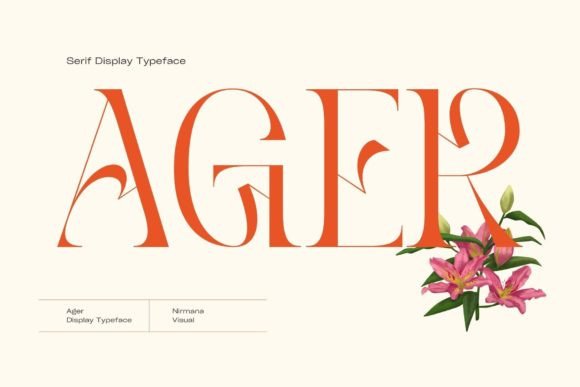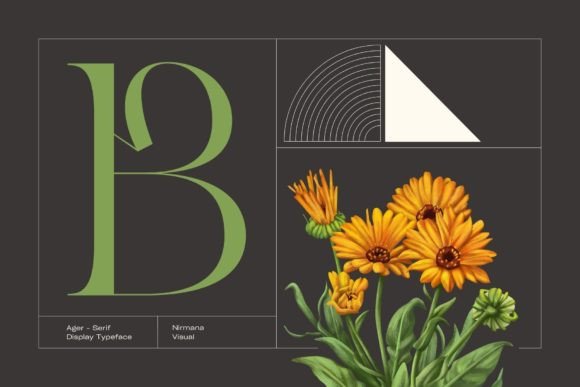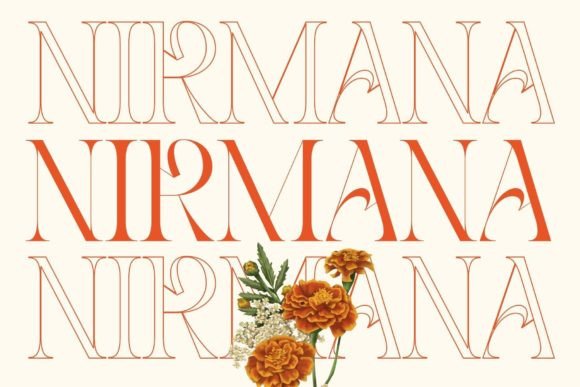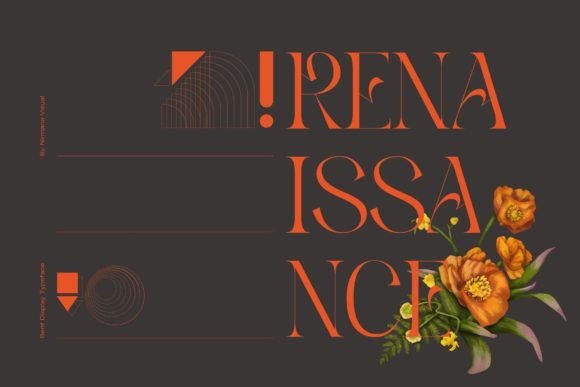
Ager Font: Elegant Art Nouveau Serif for Modern Logo Design
About the Ager Font
Unleash your creativity with Ager Font, a versatile font perfect for a wide range of applications. Ager Inspired by art nouveau Design Era. Ager offers beautiful typographic harmony for a diversity of design projects, including logos & branding, social media posts, advertisements & product designs.
Ager’s elegant, flowing forms make it ideal for headlines, short text blocks in branding materials, and sophisticated packaging designs where its Art Nouveau influences can shine. It works particularly well for projects needing a touch of vintage charm or a refined, decorative aesthetic. However, its decorative nature makes it less suitable for body text or UI elements, where readability over extended lengths is paramount.
Its inherent boldness is best balanced by pairing it with a clean sans-serif like Open Sans or Lato for a modern contrast, or a classic serif such as Garamond or Didot for a more traditional feel. Using a simpler, neutral typeface for supporting text will prevent visual overload.
Ager’s personality is sophisticated and subtly dramatic; brands seeking to project a sense of luxury, artistry, or historical connection will find it a strong visual asset. Avoid using it for projects requiring a playful or highly informal tone.
Ager Font Usage Examples
Ager Font Example